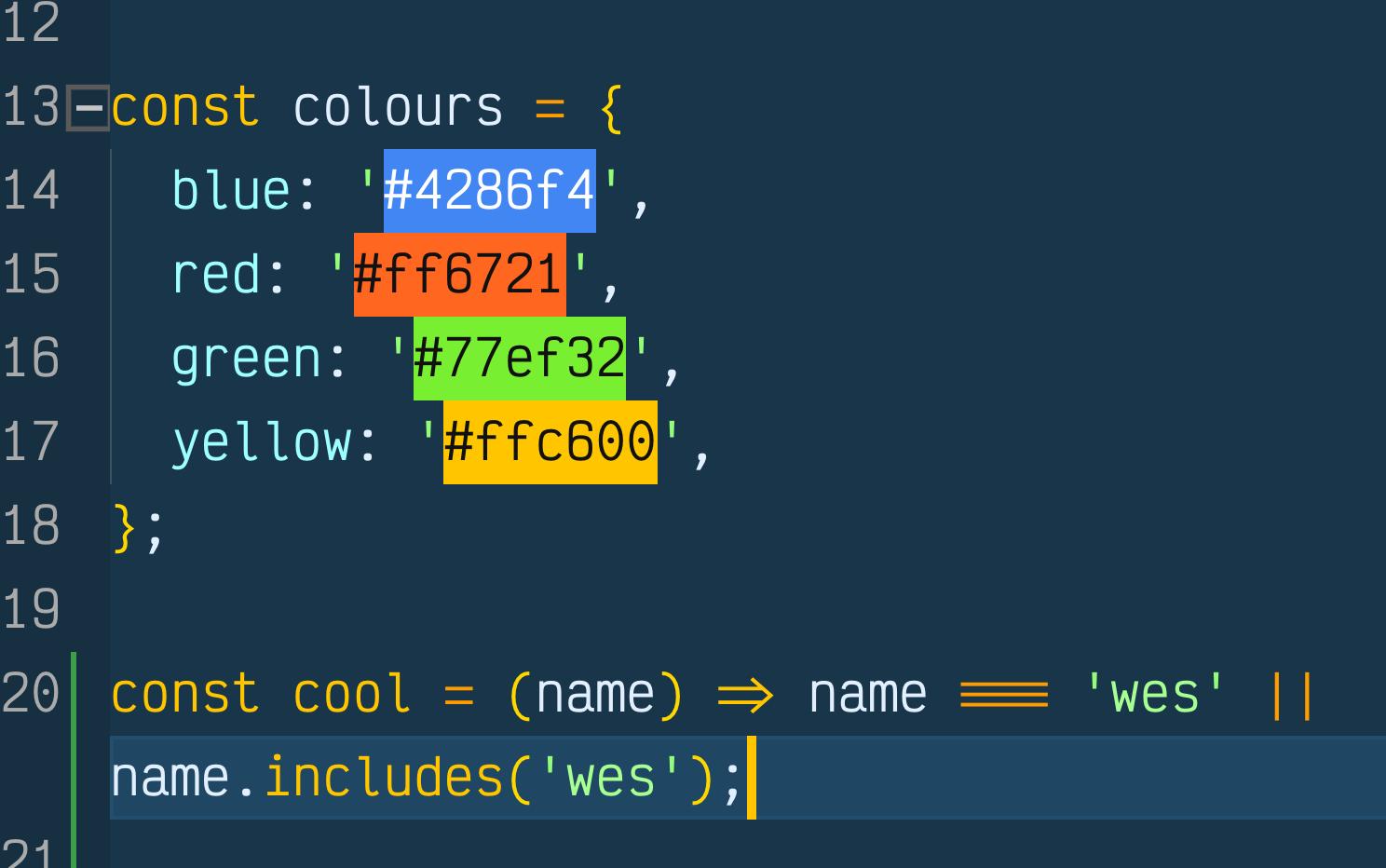
It has custom ligatures and a distinctly cursive style. Download free font mona lisa solid.
Monalisa 400 (otf) type your text. You can see how it looks in the video below, or by checking it out on the website. This font is a cool, modern and elegant.
Distinction is critical for a good coding font since it reduces ambiguity and helps avoid mistakes that can lead to software bugs. Dowonload this fonts for graphic design , web fonts You'll likely find that this font is polarising.
Free download of monalisa font. A monospaced typeface with 4 styles, available from adobe fonts for sync and web use. Fonts that are equipped starting from uppercase, lowercase, numeric, and some special character and alternates.
Its free to download to use for. Becoming, a sum of parts, building upon its initial reference points to create an extensive. Read 10 of the best programming fonts and learn with sitepoint.
Please visit our store for more amazing fonts: Monalisa font is a script handwritten font designed by halymunt studio. Such as notepad or vscode or whatever you may choose.
Tested with vscode, but should support every editor that supports italics. Follow our instagram for update : Monolisa has a set of glyphs that fit together but at the same time are distinct enough so you can tell them apart.
Theme mona lisa by amboise. Monalisa font is available as a free for personal use which is in uppercase, lowercase, numeric, and some special character also looks better. 334 url not found or server error .</p>
Confirm that you have set the git username correctly: $ git config user.name mona lisa. Monalisa script font are very suitable for logos, branding, invitations, stationery, wedding designs, invitations, logos, business cards, covers, on shirts, social media posts and more.
Either people love the cursive style or hate it. Change the current working directory to the local repository where you want to configure the name that is associated with your git commits. But any donation are very appreciated.
Operator mono medium fonts free download. Vs code requires a little more work, first of all, download the custom css and js loader by be5invis, then create a file called styles.css and paste this snippet of code in it /* i decided on the brush script mt cursive font for now. Making the web more beautiful, fast, and open through great typography
Adobe fonts is the easiest way to bring great type into your workflow, wherever you are. The conceit behind aperçu was to create a synopsis or amalgamation of classic realist typefaces: This font is one of the more popular premium fonts (~$200) and is one of my personal favourites.